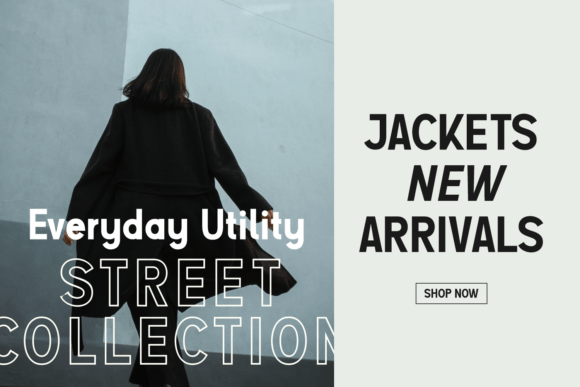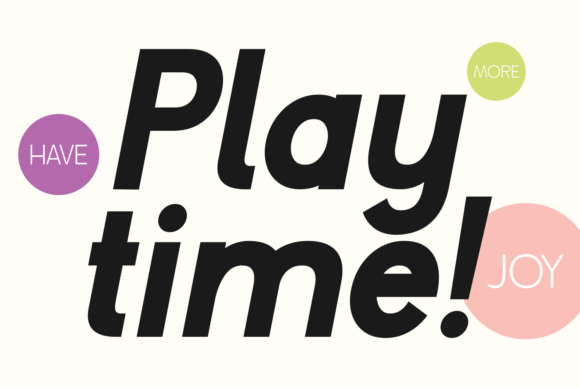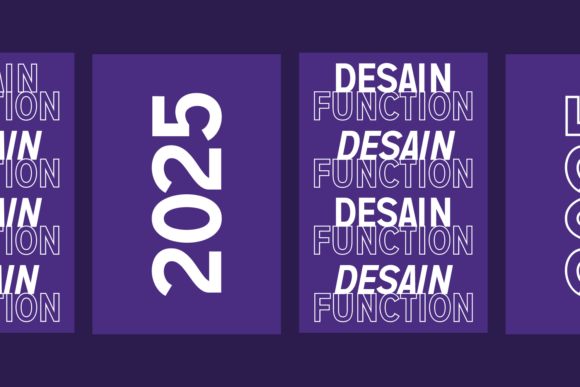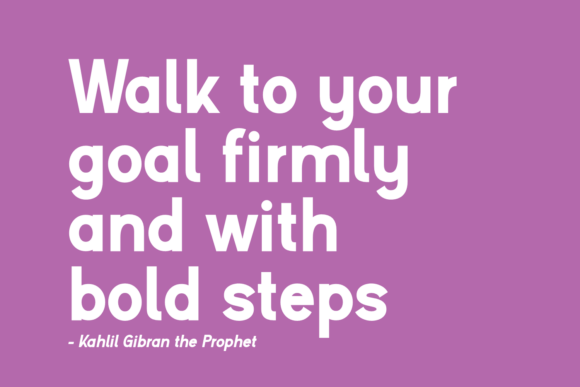
Discover the Mesmerizing Charm of Eraone Font
In the realm of typography, few fonts have managed to capture the essence of versatility and elegance as effectively as Eraone. This remarkable sans-serif font has been making waves in the design community with its unique charm and expansive range of applications. Eraone is not just a font; it’s a tool that unlocks a multitude of creative possibilities, making it a favorite among designers worldwide.
The Eraone Family: A Trio of Typographic Excellence
Eraone manifests in three distinct styles: Regular, Italic, and Outline. This trio of typographic excellence offers designers the flexibility to experiment with various creative expressions. Whether you’re drafting attention-grabbing headings, creating visually compelling posters, or enhancing the appeal of magazines, Eraone’s unparalleled charisma elevates each endeavor to new heights.
Seamless Integration into Multilingual Dialogue
One of the standout features of Eraone is its expansive array of Eastern European glyphs. This extensive character set enables the font to seamlessly integrate into multilingual dialogue, intensifying its international appeal. Designers can now create content that resonates with a global audience, without worrying about the limitations of character sets.
Unleash Your Creativity with Eraone
Eraone’s versatility is one of its most compelling attributes. This font can be used in a wide range of design applications, from:
- Attention-grabbing headings that demand attention
- Visually compelling posters that leave a lasting impression
- Magazines and publications that require a touch of elegance
- Branding and advertising materials that need a unique edge
A Profound Artistic Journey with Eraone
Eraone is more than just a font; it’s a gateway to a profound artistic journey. This virtuoso exhibit of typographic prowess invites designers to explore the depths of creativity, pushing the boundaries of what’s possible with typography. With Eraone, designers can:
- Experiment with different styles and combinations
- Unlock new creative possibilities
- Elevate their designs to new heights
The Benefits of Using Eraone
So, what sets Eraone apart from other fonts? Here are just a few benefits of using Eraone:
- Versatility: Eraone’s range of styles and character sets make it an incredibly versatile font.
- Elegance: Eraone’s sans-serif design exudes elegance and sophistication.
- Multilingual support: Eraone’s expansive array of Eastern European glyphs makes it an ideal choice for multilingual projects.
- Creative freedom: Eraone’s unique charm and character give designers the freedom to experiment and push the boundaries of creativity.
In conclusion, Eraone is a typographic treasure that deserves to be acknowledged and celebrated. Its mesmerizing charm, versatility, and expansive range of applications make it an invaluable tool for designers worldwide. Whether you’re a seasoned designer or just starting out, Eraone invites you to embark on a profound artistic journey, unlocking new creative possibilities and elevating your designs to new heights.
Discover the magic of Eraone for yourself. Explore its various styles, experiment with its character sets, and unlock the full potential of this remarkable font. With Eraone, the possibilities are endless, and the creative journey is just beginning.